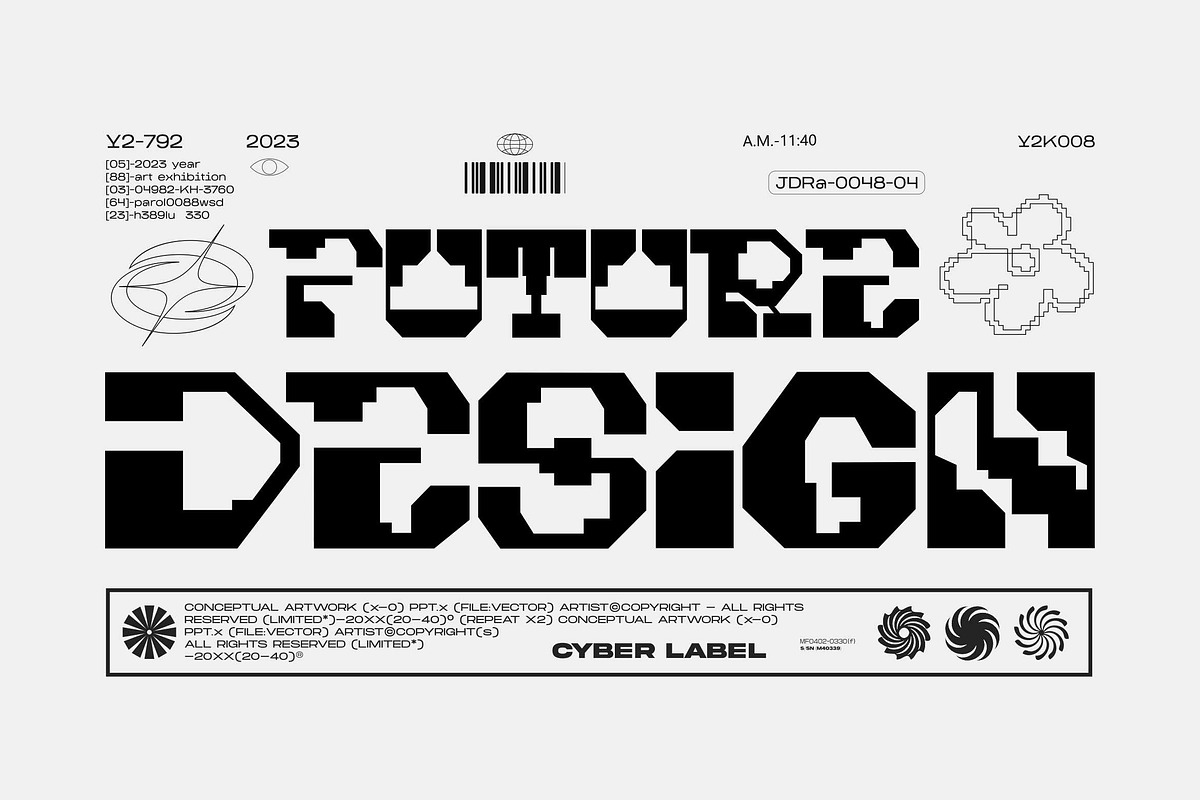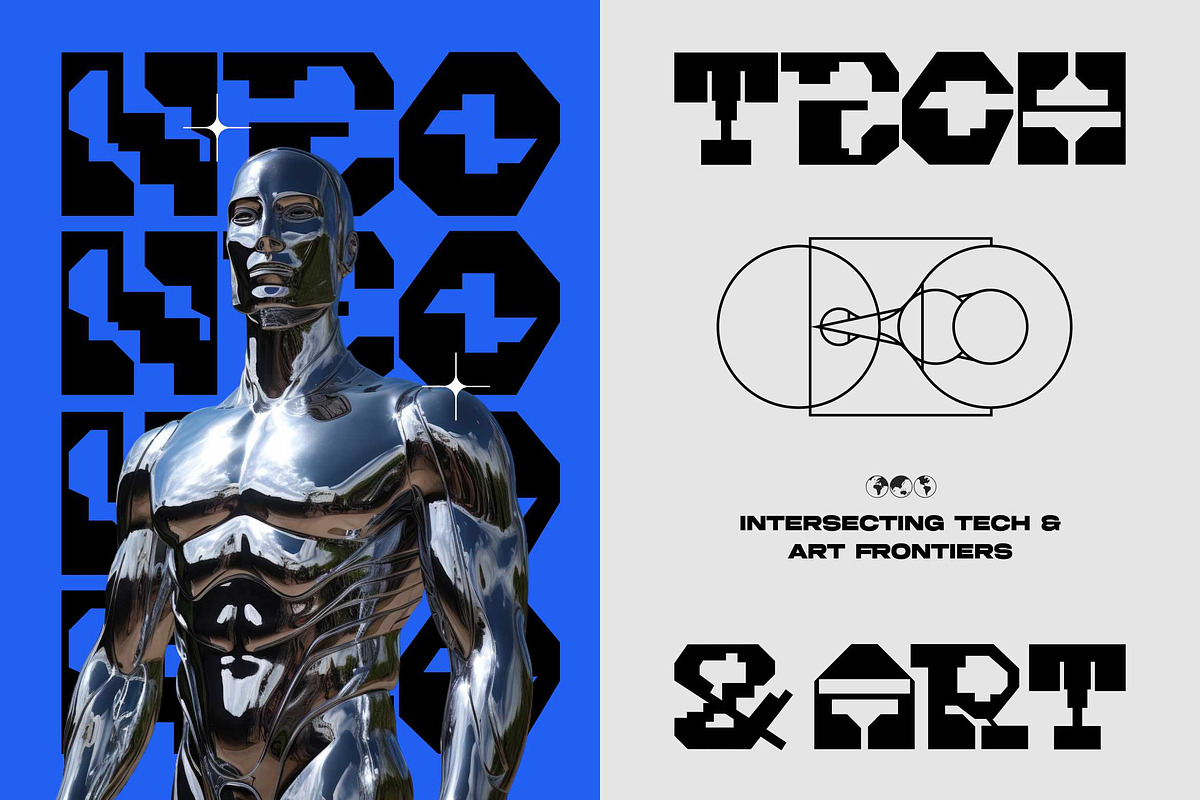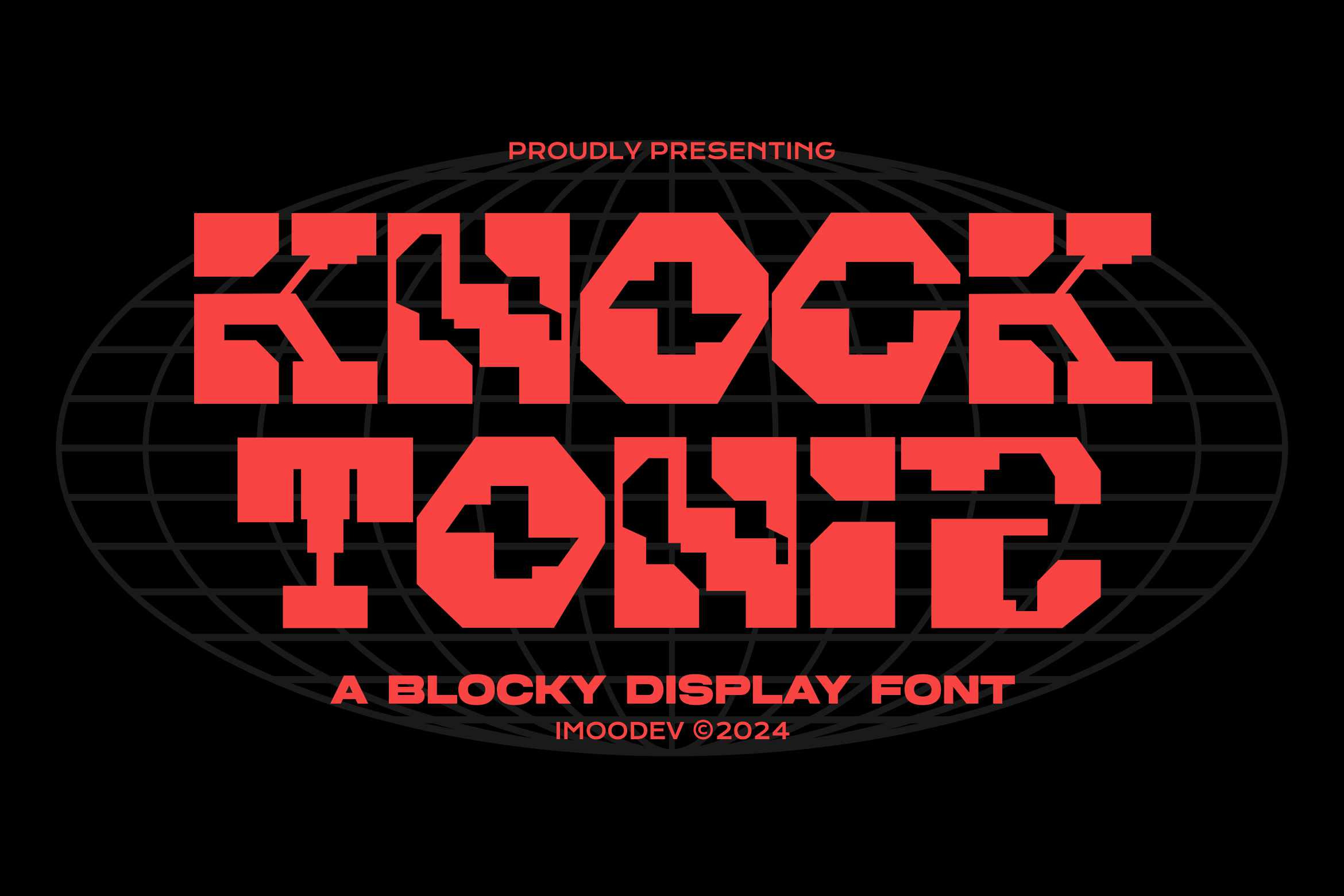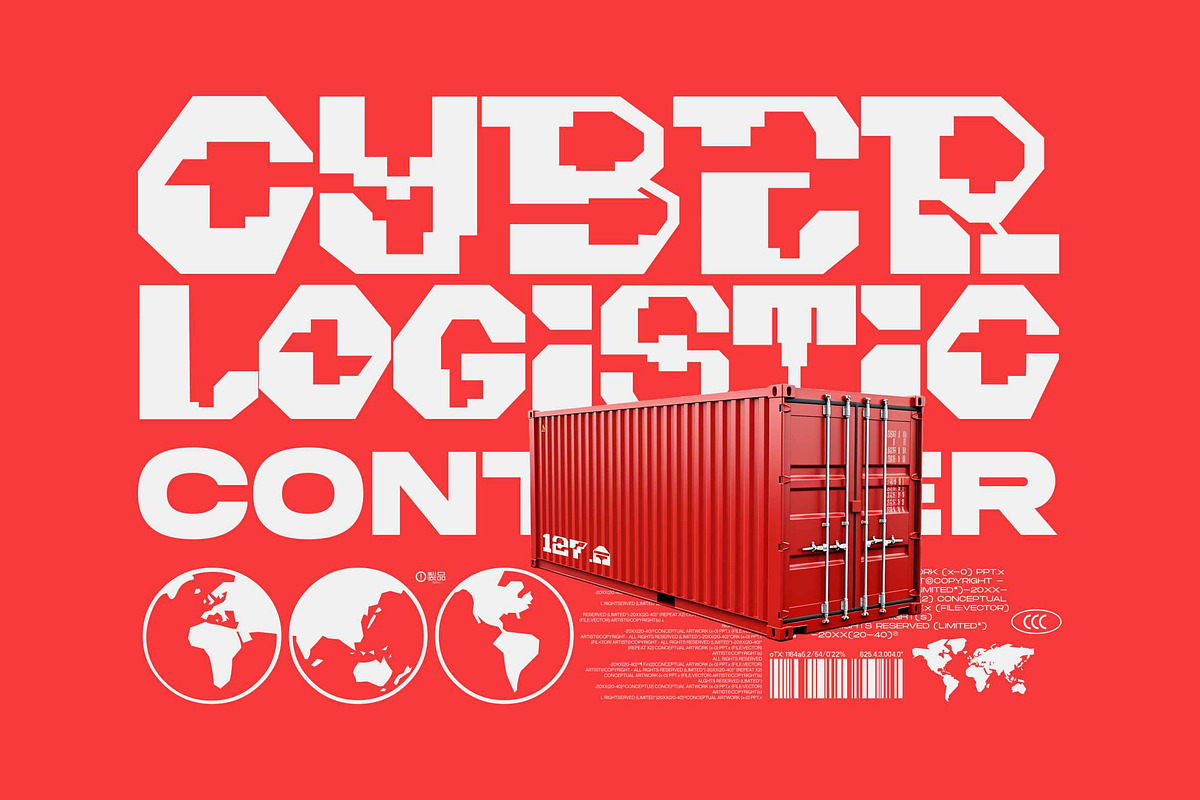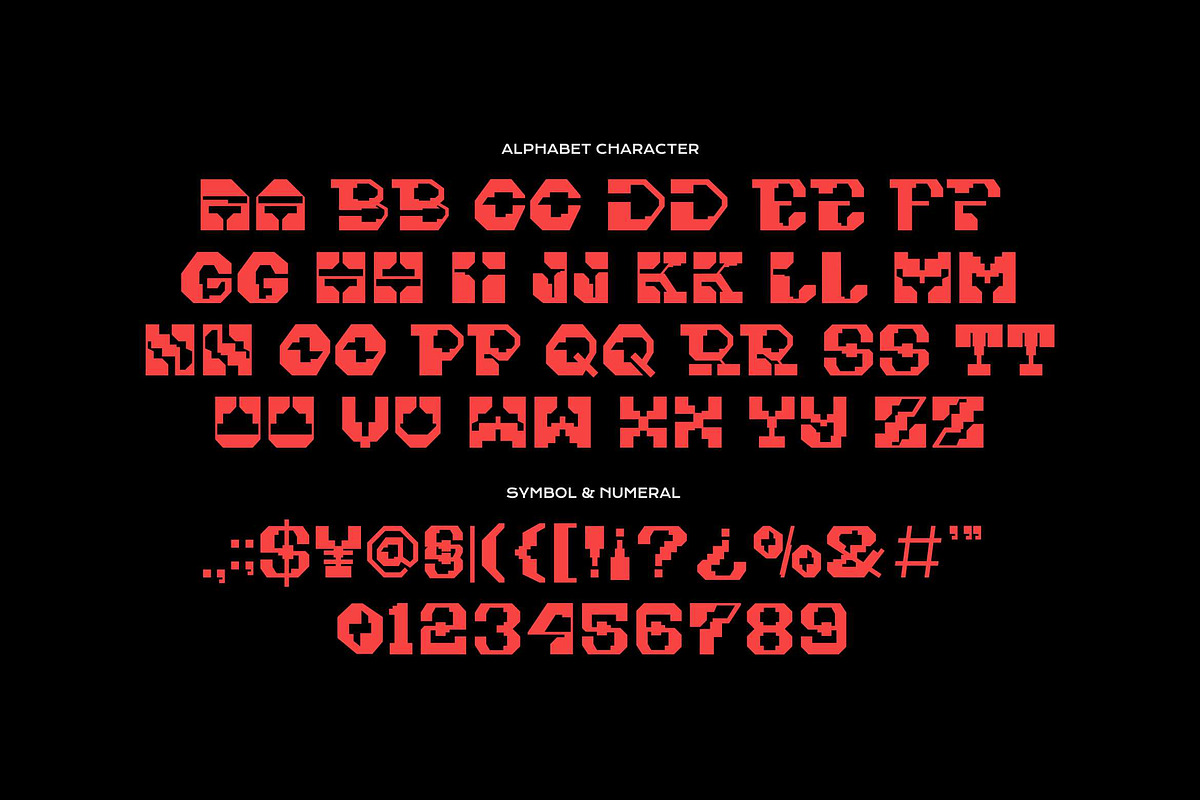
Knock Tonic - Geometric Space Font
Step into the future with Knock Tonic, a powerful and assertive blocky geometric space font designed to make a high impact statement. Built from solid geometric shapes and distinctive cutouts, this font embodies a fusion of industrial strength and futuristic technology.
The letters in Knock Tonic are constructed with a modular, octagonal approach, giving them a unique, chiseled appearance. Each character is intentionally heavy and wide, demanding attention and creating a sense of unshakeable stability. The strategic negative space within the letterforms adds a layer of complexity and a stencil-like quality, perfect for projects that need an edgy, cyber tech aesthetic.
This all caps typeface is perfect for headlines, logos, posters, and branding that aims to be modern, bold, and unforgettable. Whether you're designing for a tech startup, a gaming title, a streetwear brand, or a sci-fi movie poster, Knock Tonic provides the strong visual foundation you need to stand out.
- Uppercase and Lowecase Characters.
- PUA Encoded Characters.
- Numerals and Punctuations.
- Alternates and Ligatures.
- Multilingual Support.